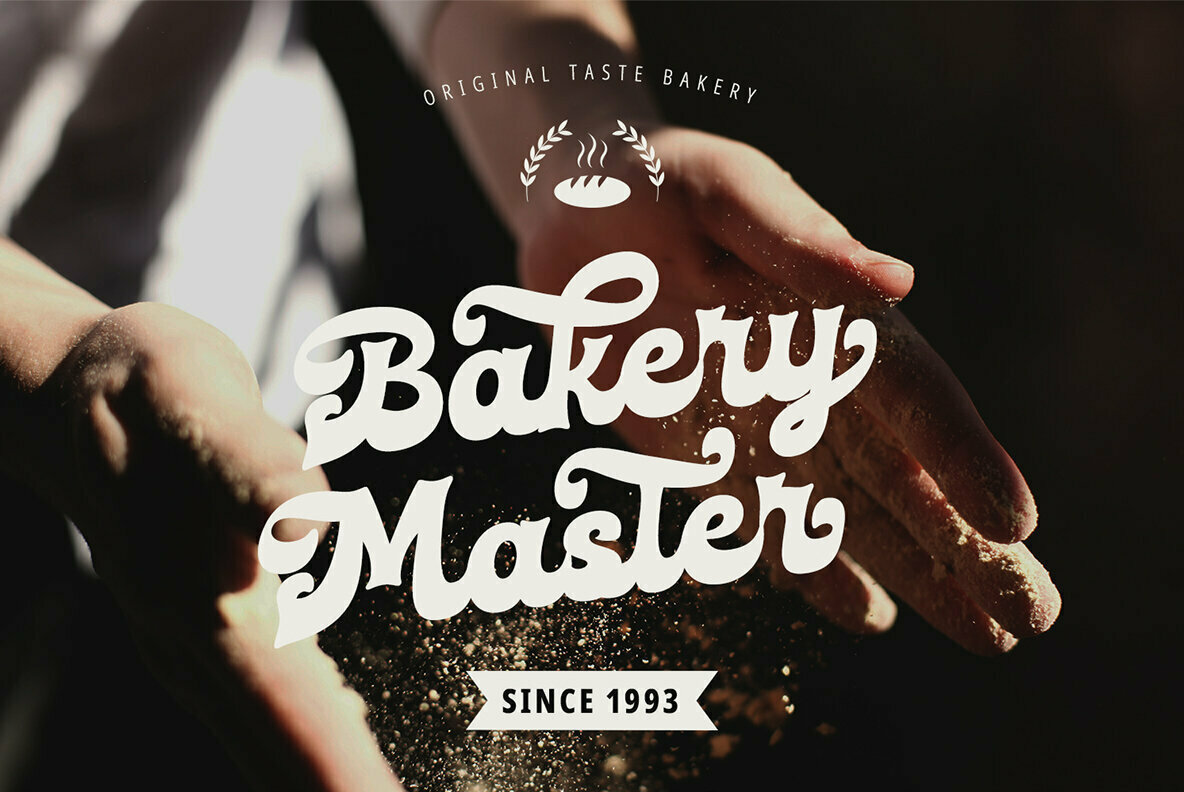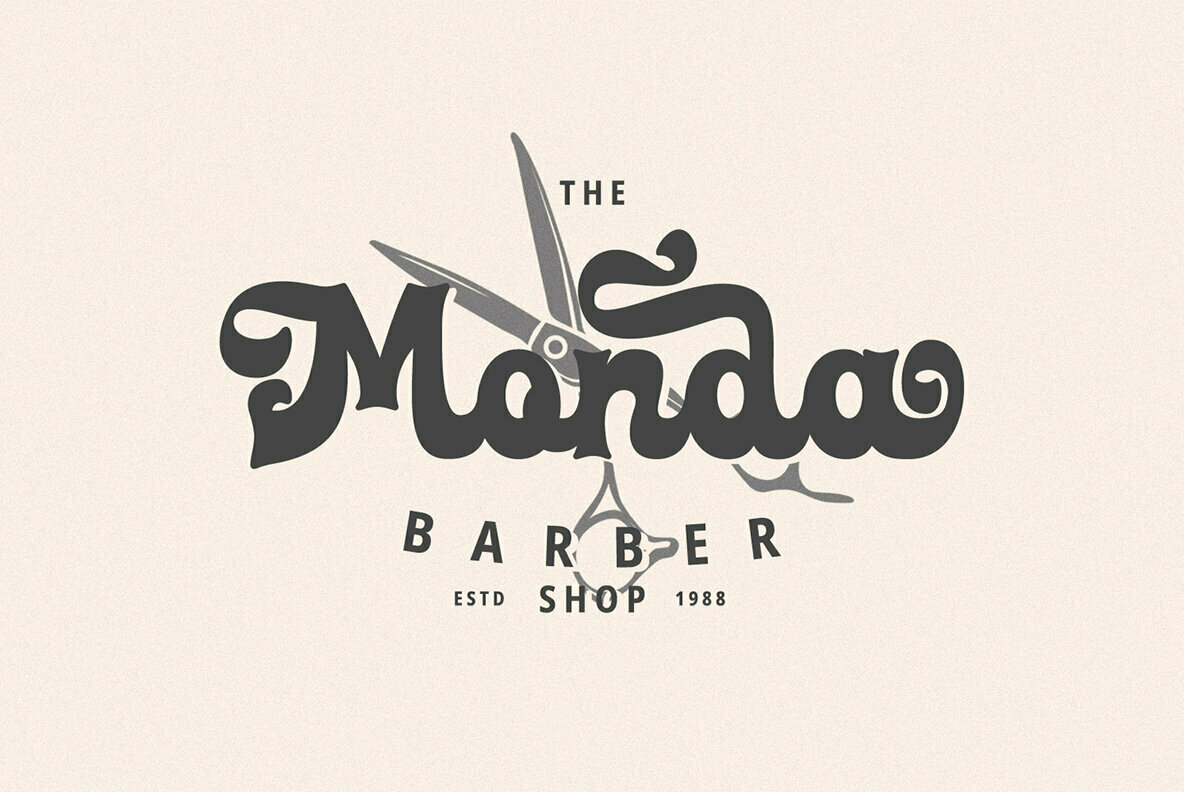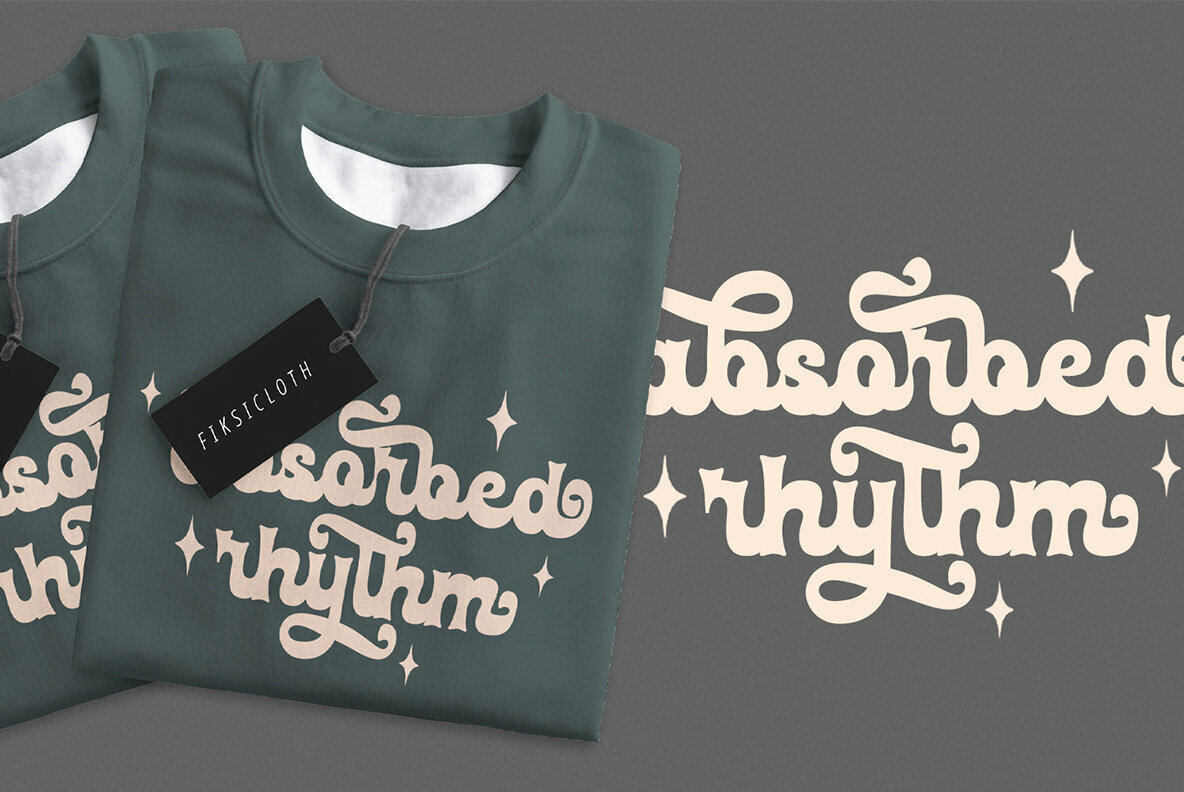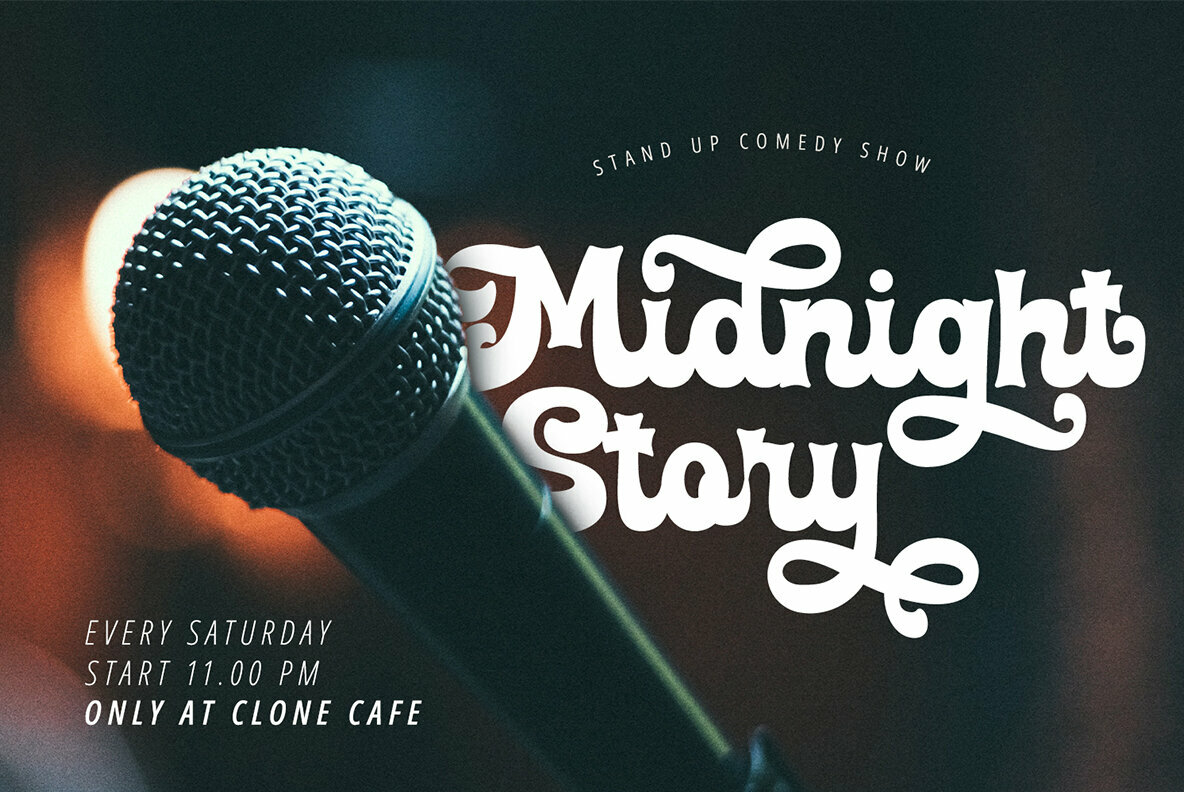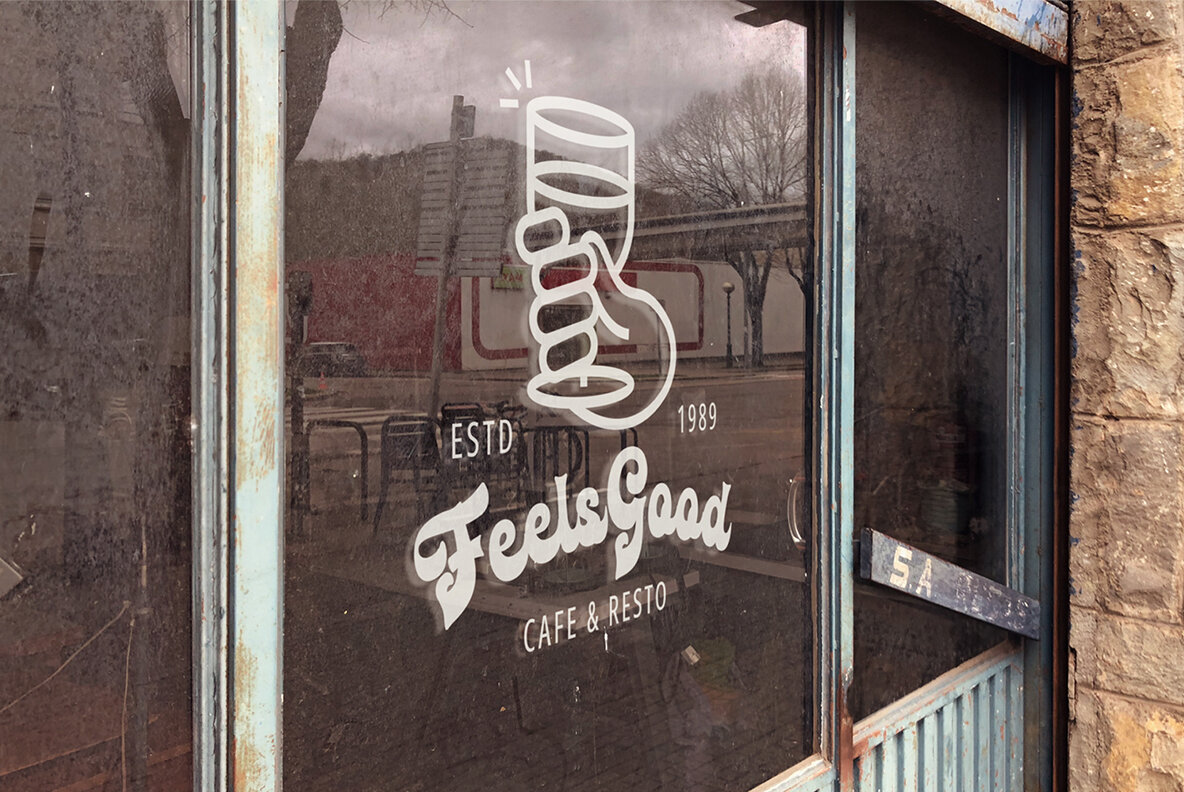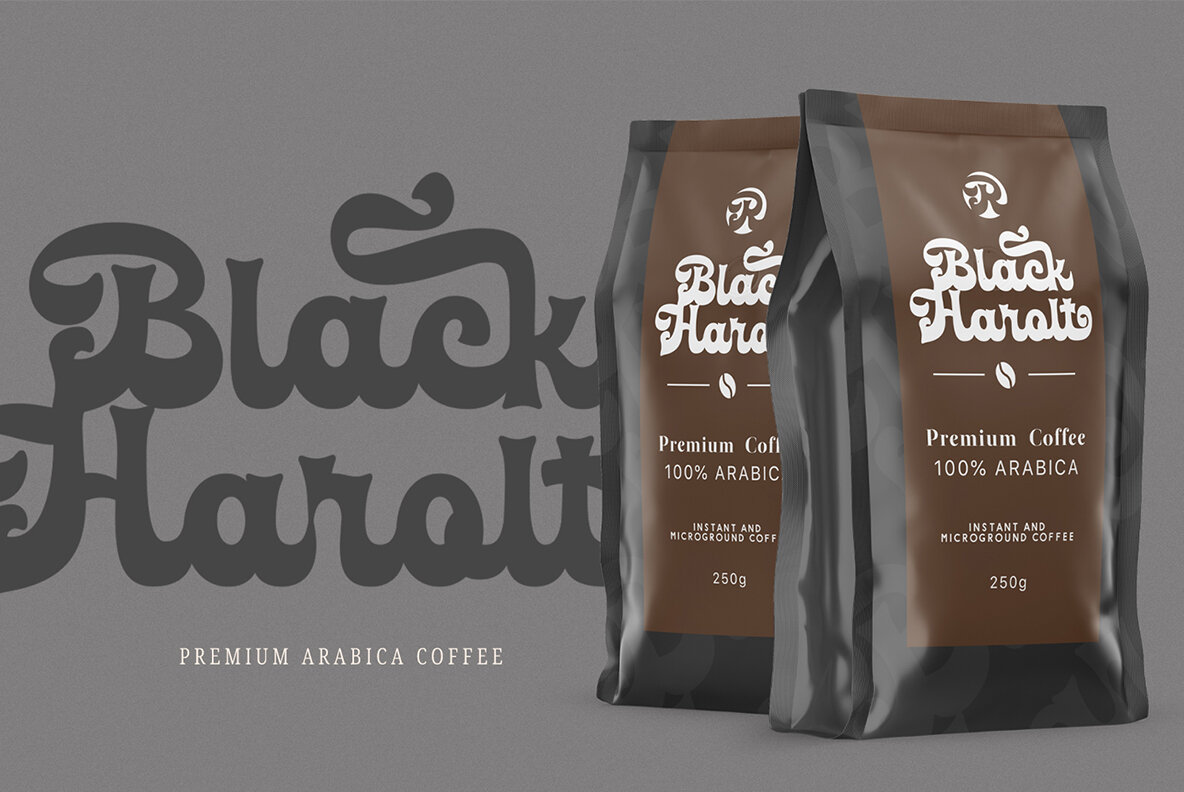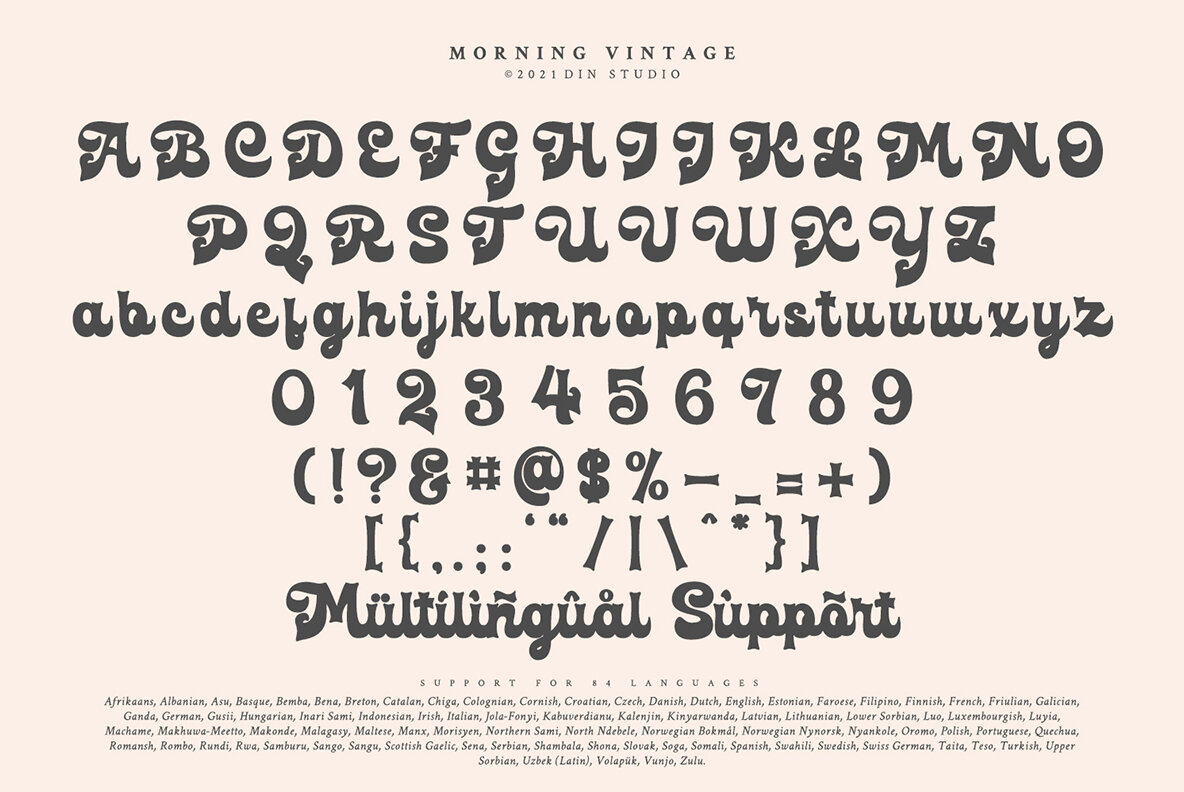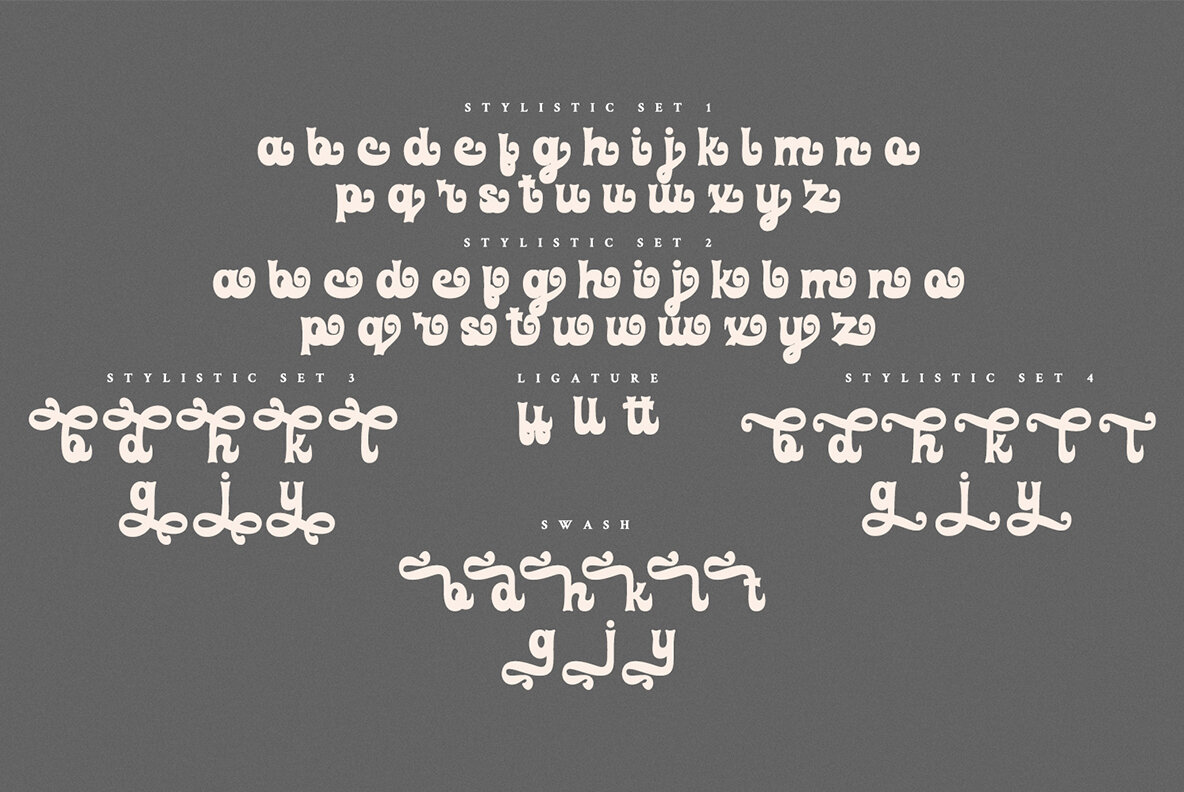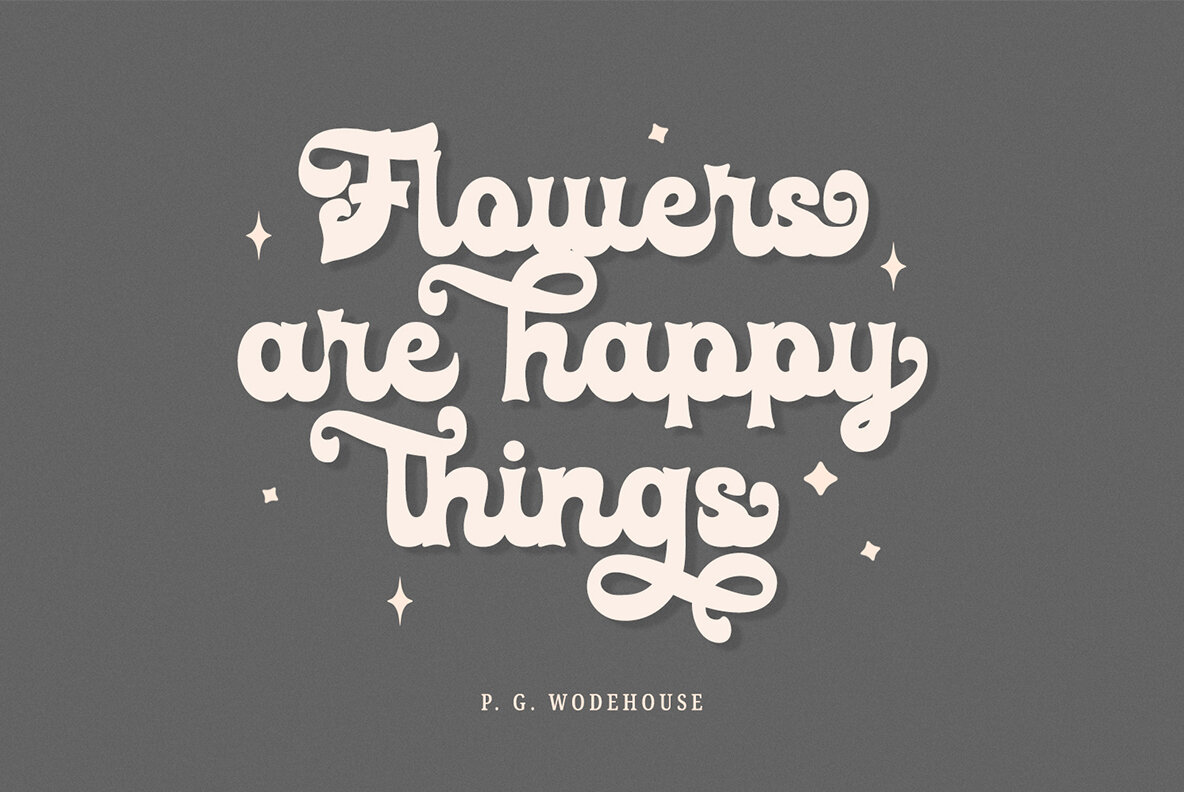
Morning Vintage Font
Morning Vintage
Have you been looking for a script font? Do you dream of creating headings that stand out and inspire creativity, imagination, modernity, and endless fun? Get ready to transcend to a world of magic, laughter, and butterflies. Your projects will spark delight and engage everyone who sees it!
Morning Vibes is a handcrafted font inspired by designs and illustrations from urban styles. An excellent choice to add the right amount of street and retro vibes. Perfect for social media branding projects, fashion designs, printed quotes, packaging, or even as a stylish text overlay to any background image.